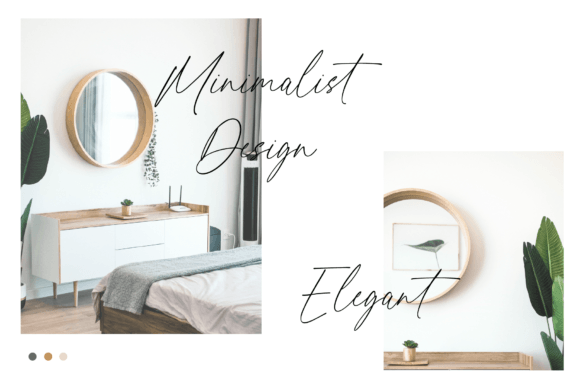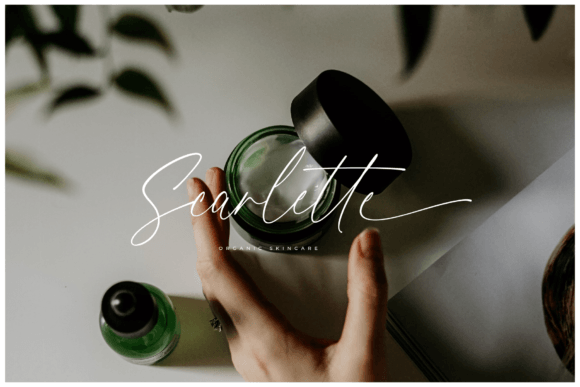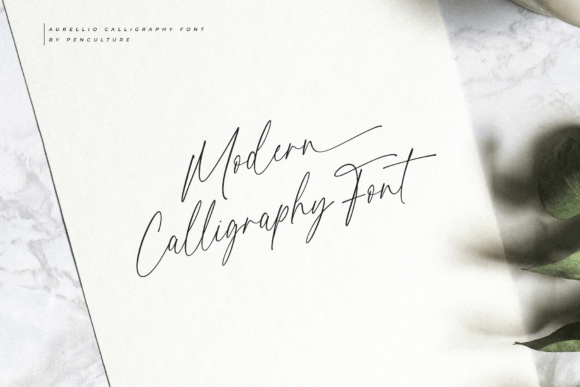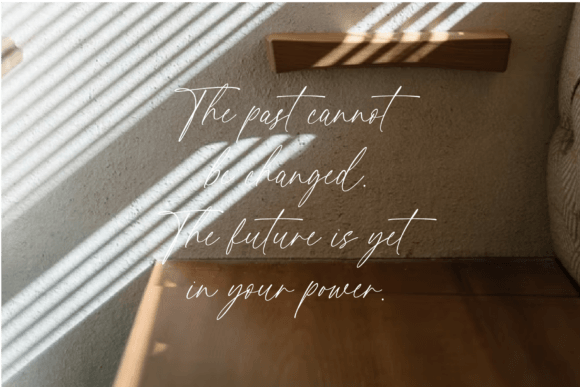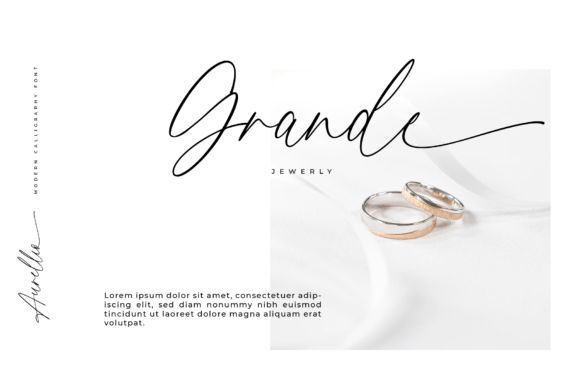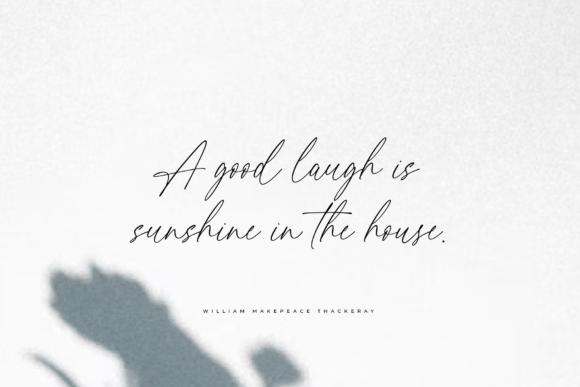
Aurellio Font: Elevate Your Designs with Modern Calligraphy
Are you a designer or crafter looking for a unique and elegant font to elevate your creative projects? Look no further than Aurellio Font, a modern calligraphy font that is sure to impress. In this article, we’ll dive into the features and benefits of Aurellio Font, and explore how you can use it to take your designs to the next level.
What is Aurellio Font?
Aurellio Font, also known as “Aurellio – Modern Calligraphy Font”, is a clean and smooth font made with original handwriting. This beautiful font is perfect for adding a touch of elegance and sophistication to your designs. With its modern calligraphy style, Aurellio Font is ideal for a wide range of applications, from branding and logos to watermarks, signatures, wedding invitations, and more.
Key Features of Aurellio Font
- Unique and Original Design: Aurellio Font is a one-of-a-kind font that is sure to make your designs stand out from the crowd.
- Clean and Smooth: The font’s clean and smooth lines make it easy to read and perfect for use in a variety of designs.
- Handwritten with Love: Aurellio Font is made with original handwriting, giving it a personal and human touch.
- Versatile: This font can be used for a wide range of applications, from digital designs to print materials.
Benefits of Using Aurellio Font
So, why should you choose Aurellio Font for your designs? Here are just a few benefits of using this amazing font:
- Adds Elegance and Sophistication: Aurellio Font is perfect for adding a touch of elegance and sophistication to your designs.
- Perfect for Branding: With its unique and memorable design, Aurellio Font is ideal for use in branding and logos.
- Great for Wedding and Event Designs: The font’s elegant and refined style makes it perfect for use in wedding invitations, event branding, and more.
- Easy to Read: Aurellio Font is clean and easy to read, making it perfect for use in a variety of designs.
How to Use Aurellio Font
So, how can you use Aurellio Font in your designs? Here are a few ideas to get you started:
- Branding and Logos: Use Aurellio Font to create a unique and memorable logo for your business or brand.
- Wedding Invitations: Add a touch of elegance and sophistication to your wedding invitations with Aurellio Font.
- Watermarks and Signatures: Use Aurellio Font to create beautiful watermarks and signatures for your digital designs.
- Social Media Graphics: Use Aurellio Font to add a touch of elegance and sophistication to your social media graphics.
Tips and Tricks for Using Aurellio Font
Here are a few tips and tricks for getting the most out of Aurellio Font:
- Experiment with Different Sizes and Colors: Don’t be afraid to experiment with different sizes and colors to find the perfect look for your design.
- Pair with Other Fonts: Aurellio Font pairs well with a variety of other fonts, so don’t be afraid to get creative and try out different combinations.
- Use in Combination with Images: Aurellio Font looks great in combination with images, so try using it to add a touch of elegance and sophistication to your designs.
In conclusion, Aurellio Font is a beautiful and versatile modern calligraphy font that is perfect for designers and crafters looking to add a touch of elegance and sophistication to their designs. With its unique and original design, clean and smooth lines, and handwritten with love, Aurellio Font is sure to impress. Whether you’re looking to create a stunning logo, elegant wedding invitation, or beautiful watermark, Aurellio Font is the perfect choice.